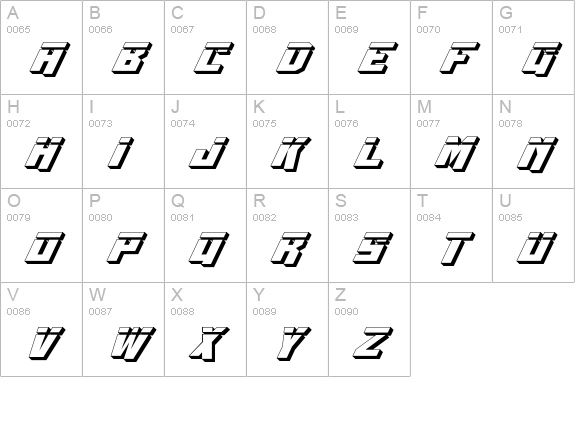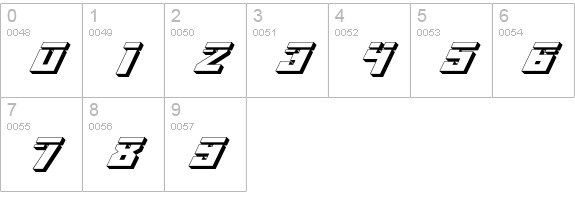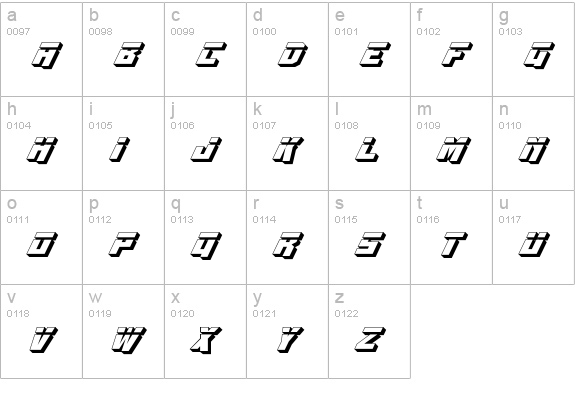
Whiskey Bravo Victor Laser3D Font Details
Introducing the Whiskey Bravo Victor Laser3D font, a mesmerizing typeface that will elevate your designs to new heights. This font is the epitome of elegance and sophistication, with its intricate laser-cut details that add a touch of three-dimensionality and depth to your projects. Designed with utmost precision and craftsmanship, Whiskey Bravo Victor Laser3D exudes a sense of modernity and innovation. Each letter is meticulously crafted to create a stunning visual impact, making it perfect for logos, headlines, posters, and any design that seeks to captivate and engage its audience. What sets this font apart is its versatility – it can effortlessly adapt to a wide range of design styles, from minimalist to extravagant, from corporate to artistic. The clean lines and sharp edges of the letters ensure legibility, while the subtle 3D effect adds a unique flair that catches the eye. But here's the best part – Whiskey Bravo Victor Laser3D font is available for free! Yes, you read that right. You can freely download this remarkable font at FontsMarket.com, a reputable online platform that offers a vast collection of high-quality fonts for designers and creatives. Whether you're a professional designer or a hobbyist, Whiskey Bravo Victor Laser3D font is a must-have in your font library. With its stunning visual appeal and the freedom to use it in your projects without any cost, this font is a true gem that will elevate your designs to new levels of sophistication and creativity. Don't miss out on this amazing opportunity to enhance your design arsenal. Download Whiskey Bravo Victor Laser3D font today from FontsMarket.com and unleash your creativity like never before.